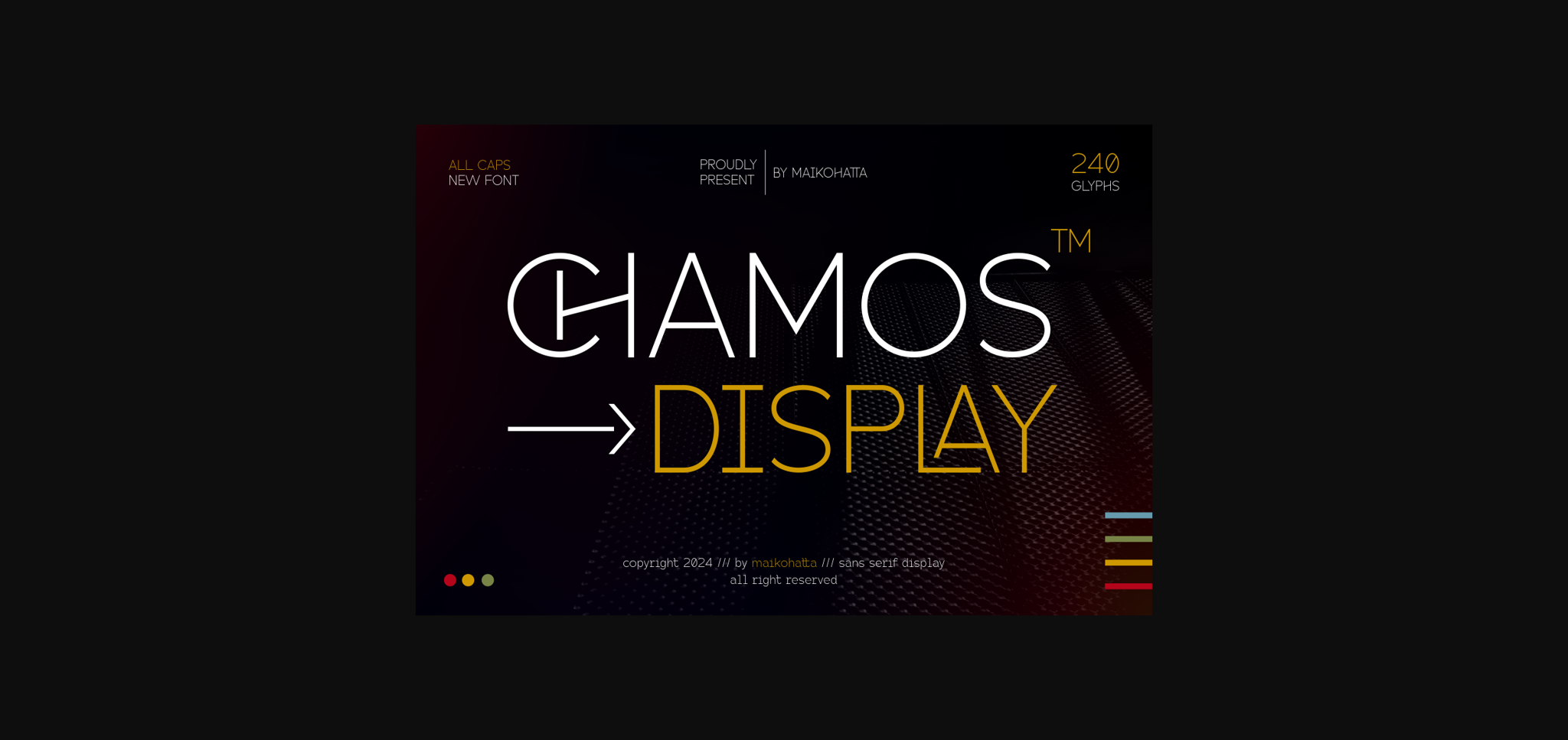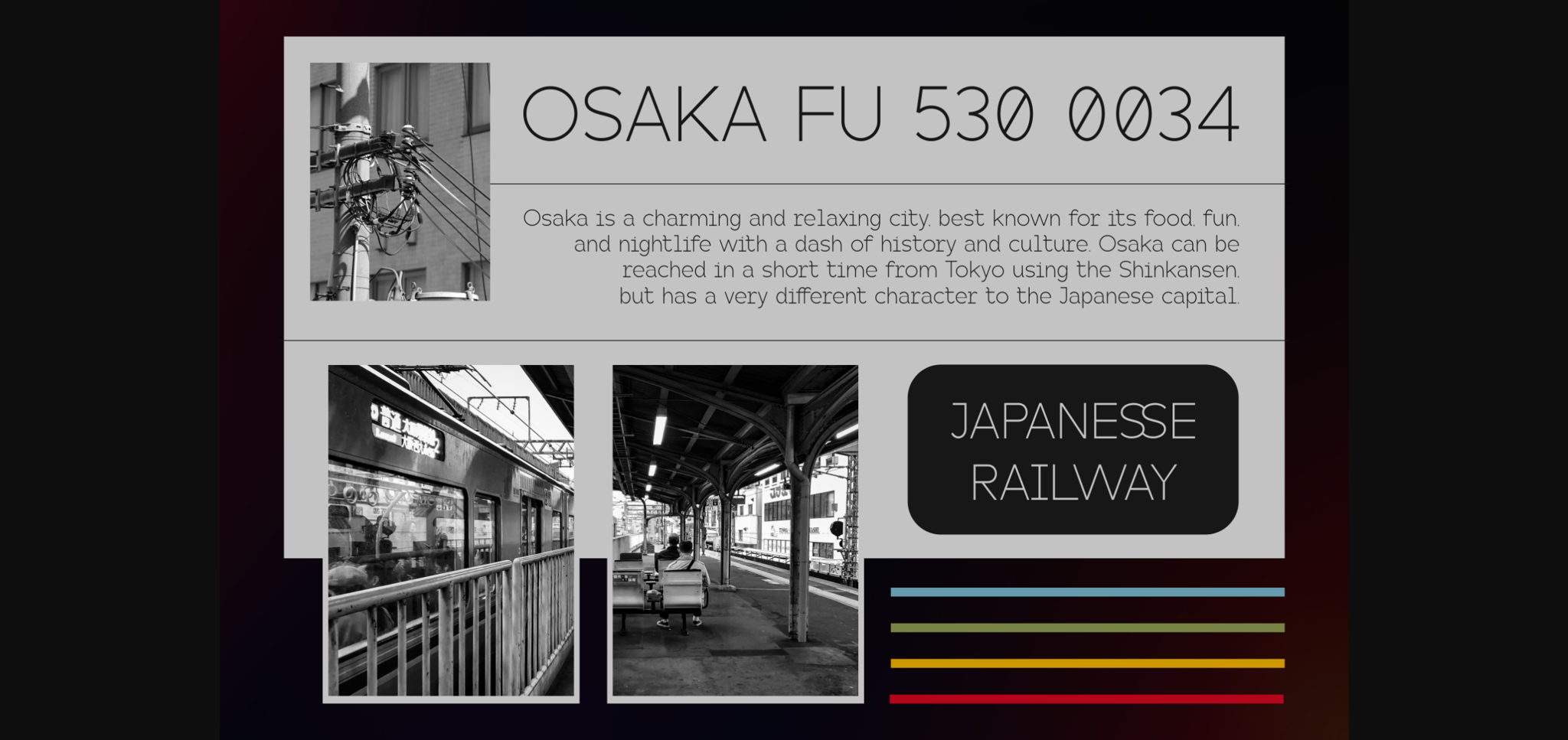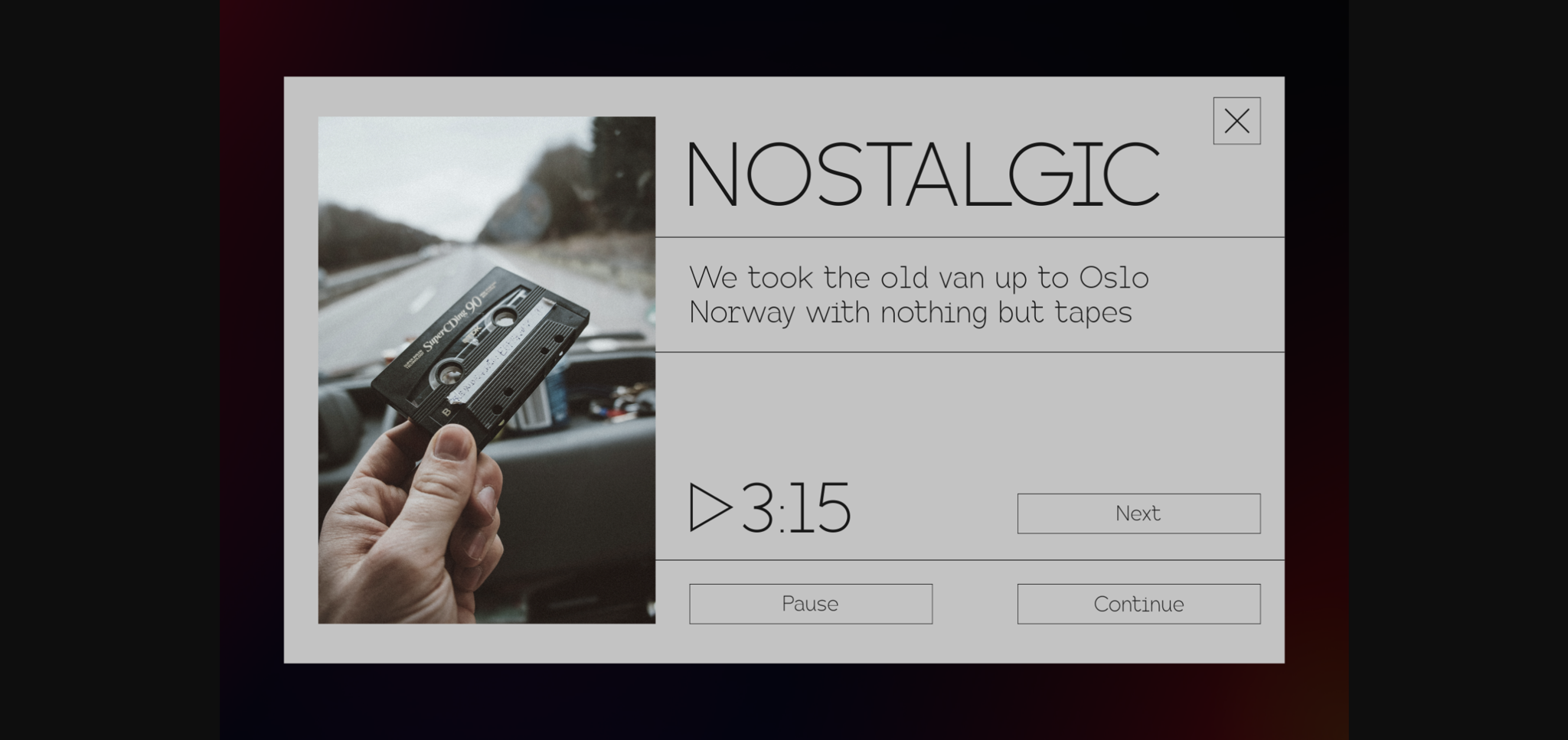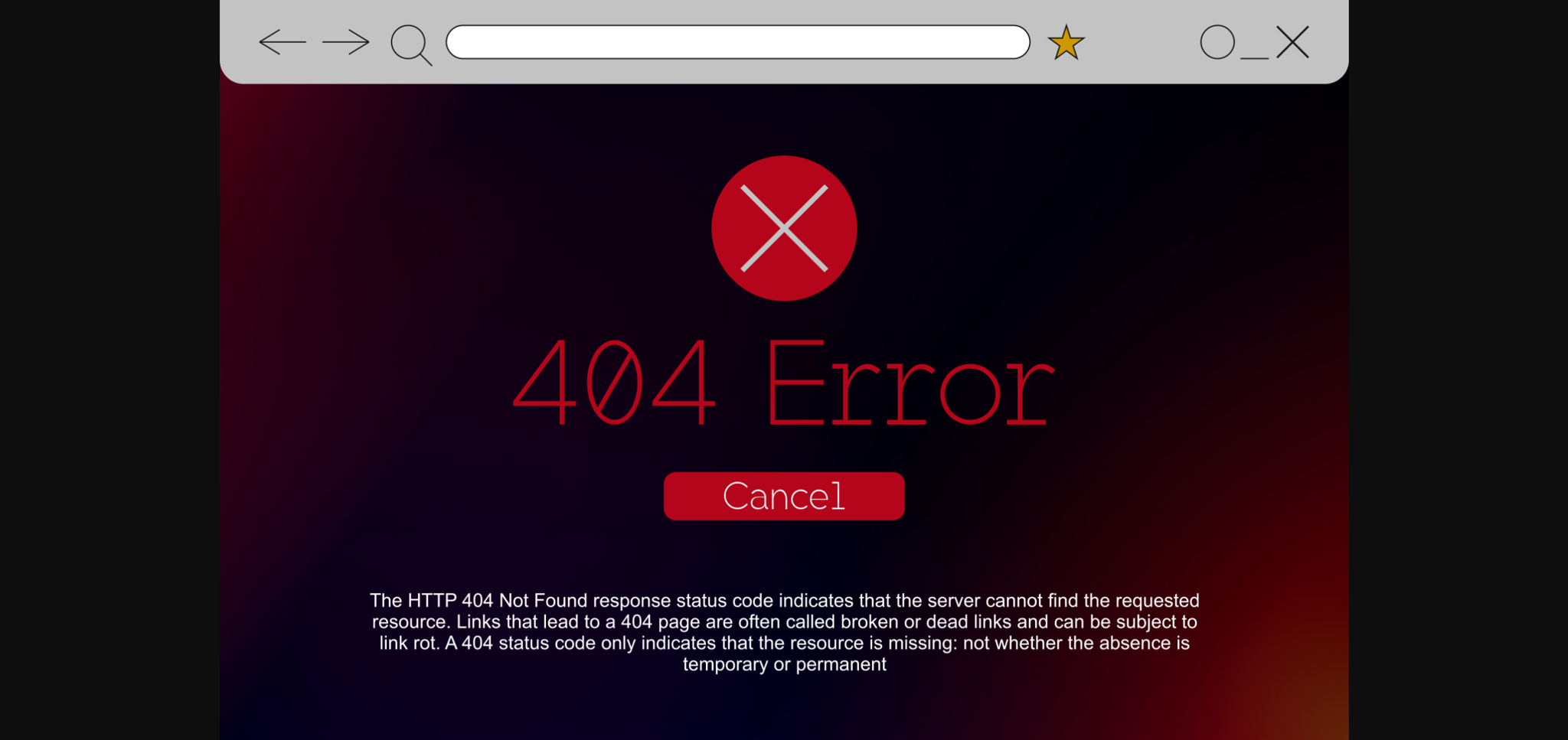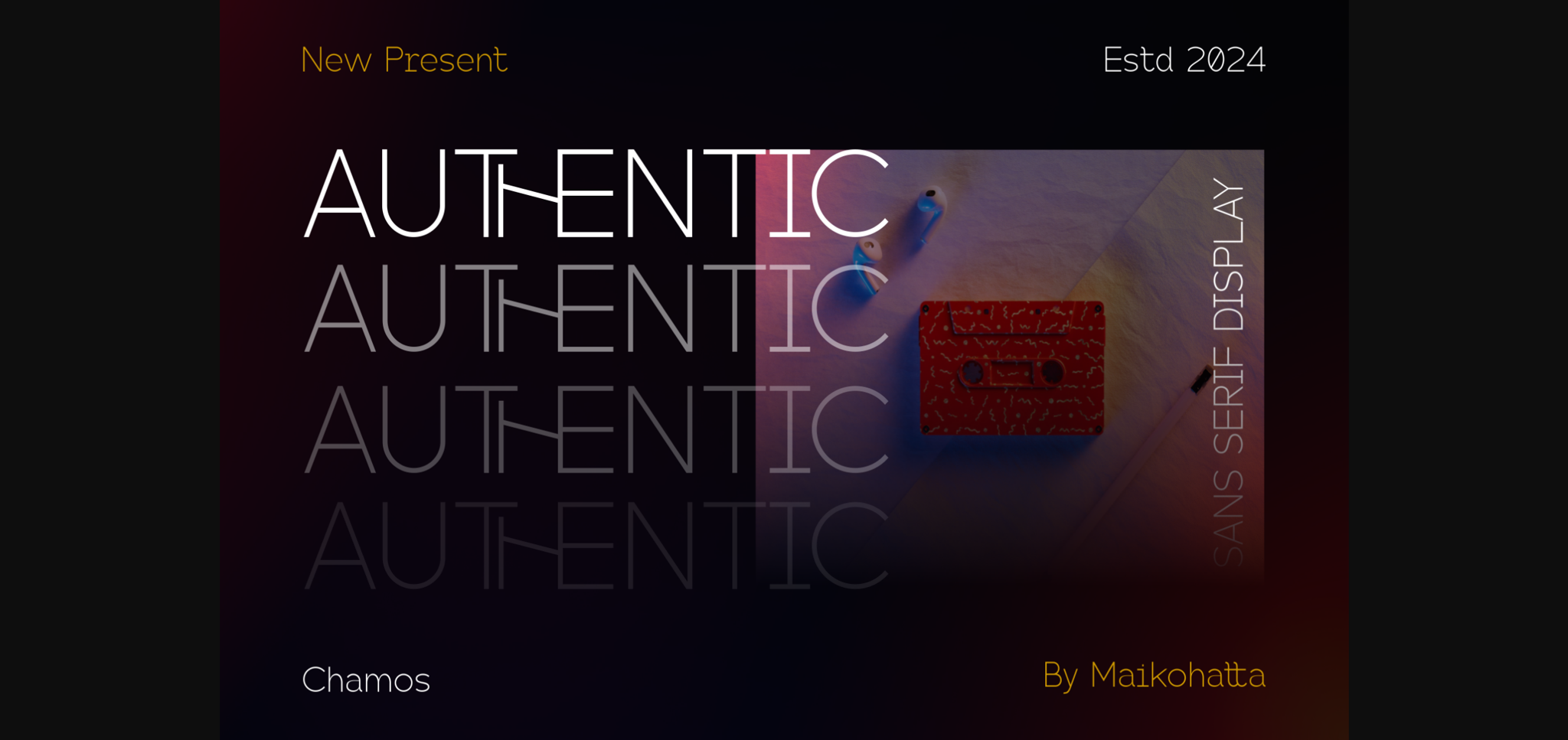
Chamos Font
About Chamos Font
This font is a typographic masterpiece that harmonizes elegance and sharpness. Every letter within this font is meticulously designed, with a keen focus on balanced proportions and impeccable alignment. This font is well-suited for a variety of contexts, such as print design, promotional materials, or magazine layouts.